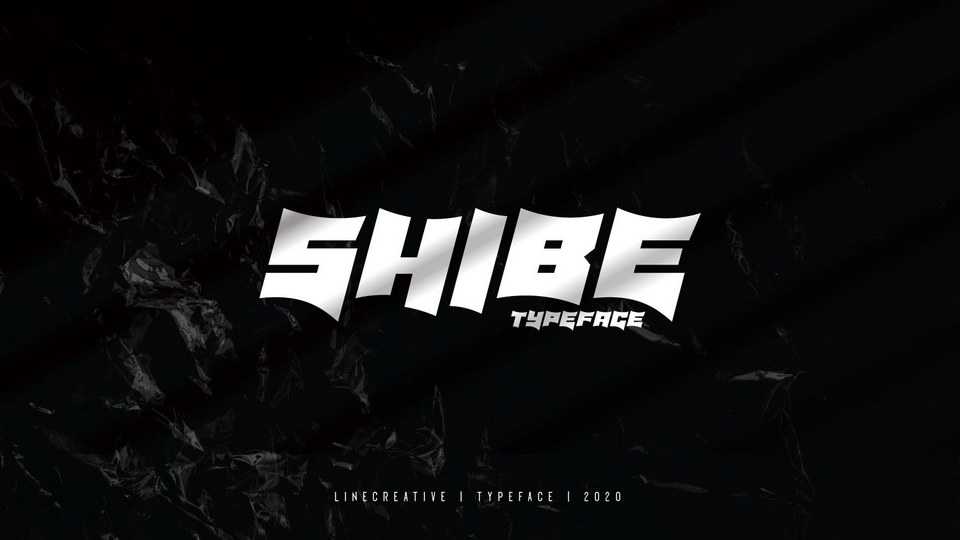
Download Shibe font, a bold display typeface that has a strong, sharp character combined with graffiti styles. Designed to become a true favorite, Shibe has the potential to bring each of your creative ideas to the highest level.
Designer: Linecreative